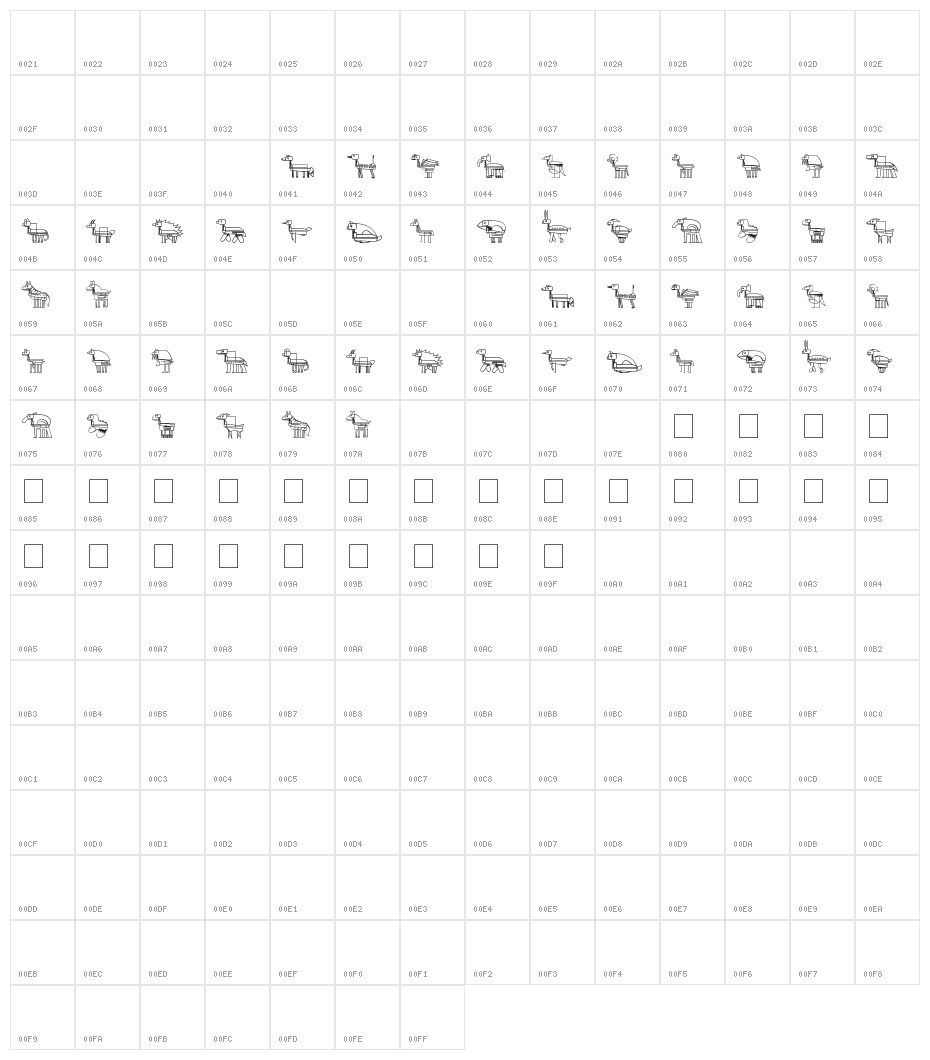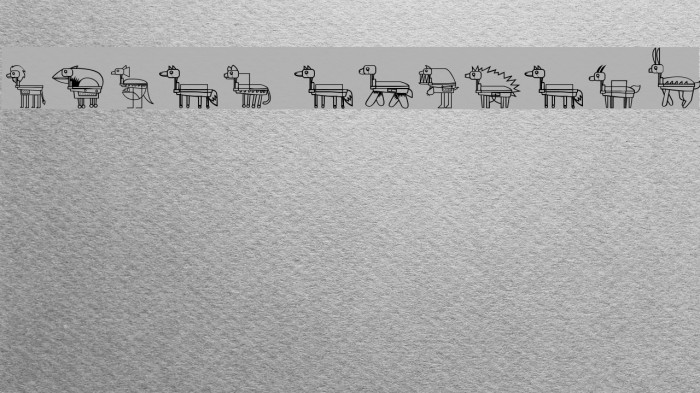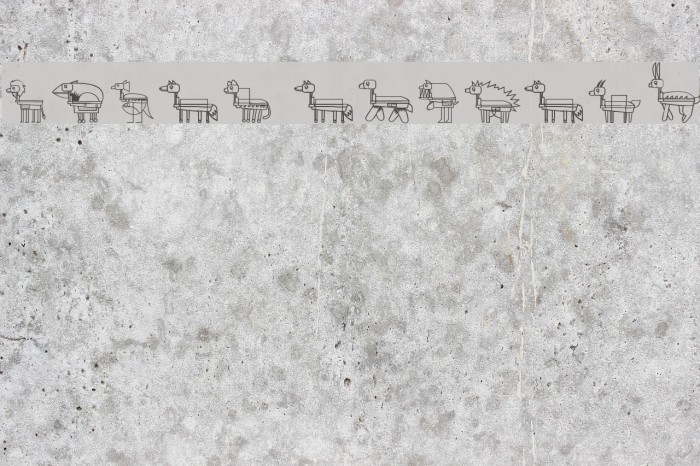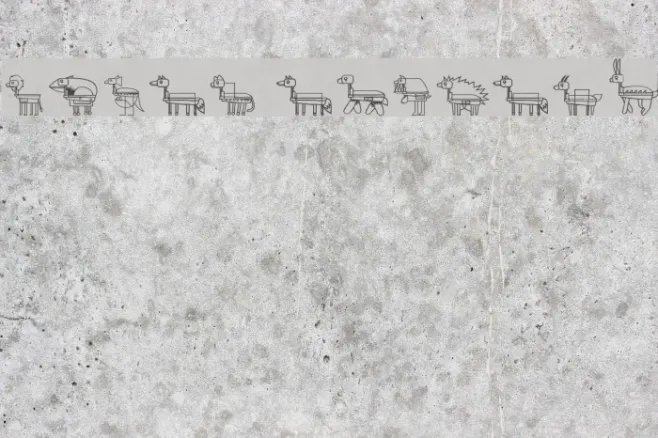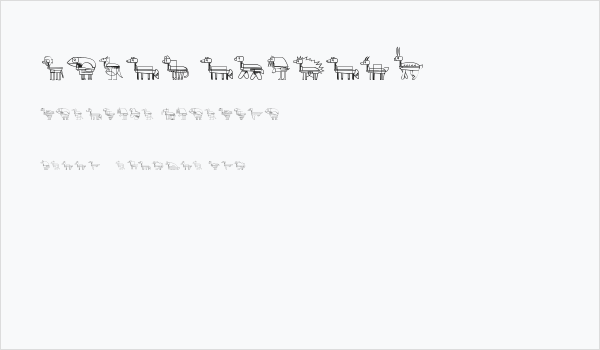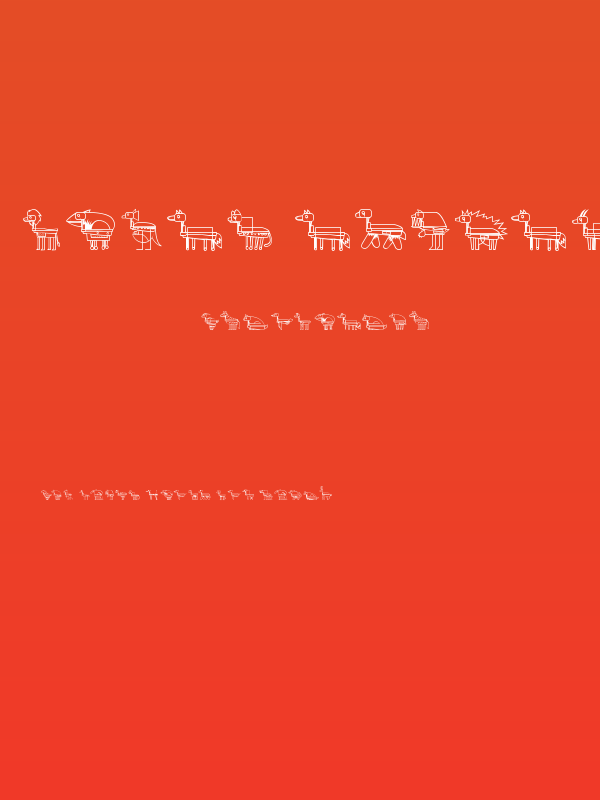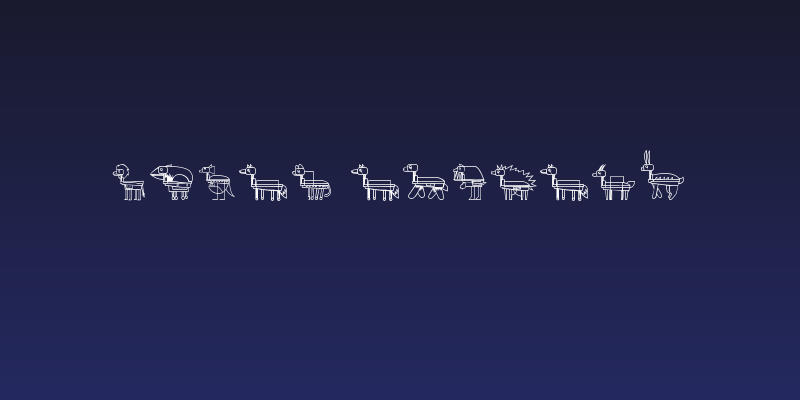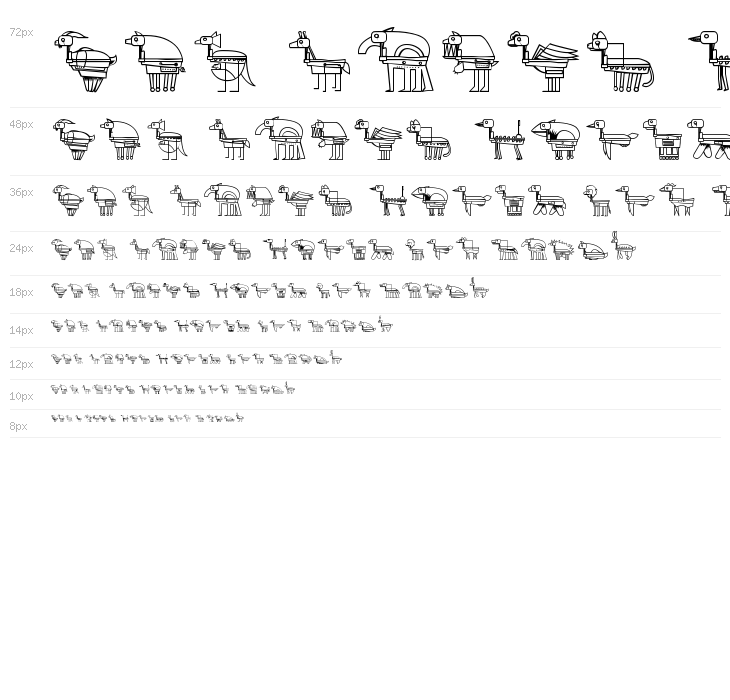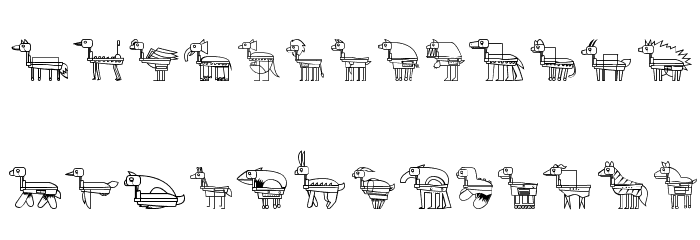
FREAK ANIMALS Font
This design features a whimsical and playful style, with each character represented by a unique animal illustration. The characters are composed of simple lines and geometric shapes, giving them a cartoonish and humorous appearance. The animals are creatively designed, each with distinct features that make them stand out, such as exaggerated limbs or quirky expressions. This style is highly decorative and artistic, making it suitable for projects that require a fun and imaginative touch.
A playful and whimsical font with characters depicted as unique animal illustrations.
• Proposed Projects: Ideal for children's books, playful branding, educational materials, and creative posters.
• Category: Decorative/Display
• Contrast: Low
• Overall Style: Decorative
• Use Case: Logos, Headlines, Creative projects